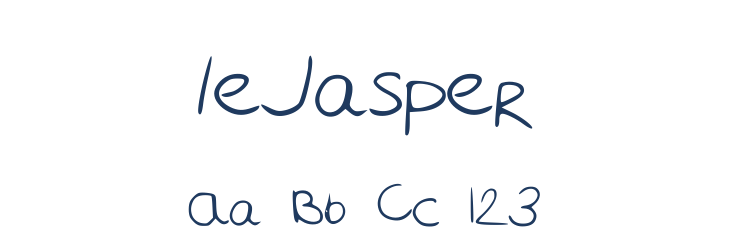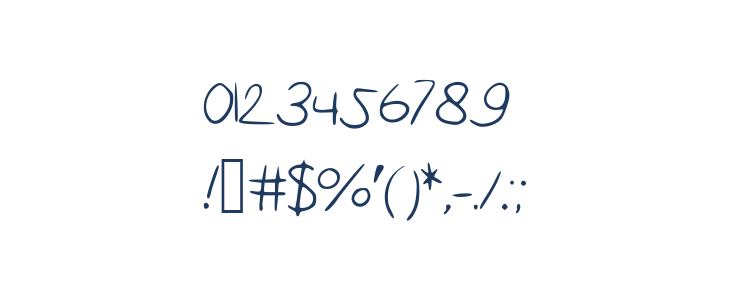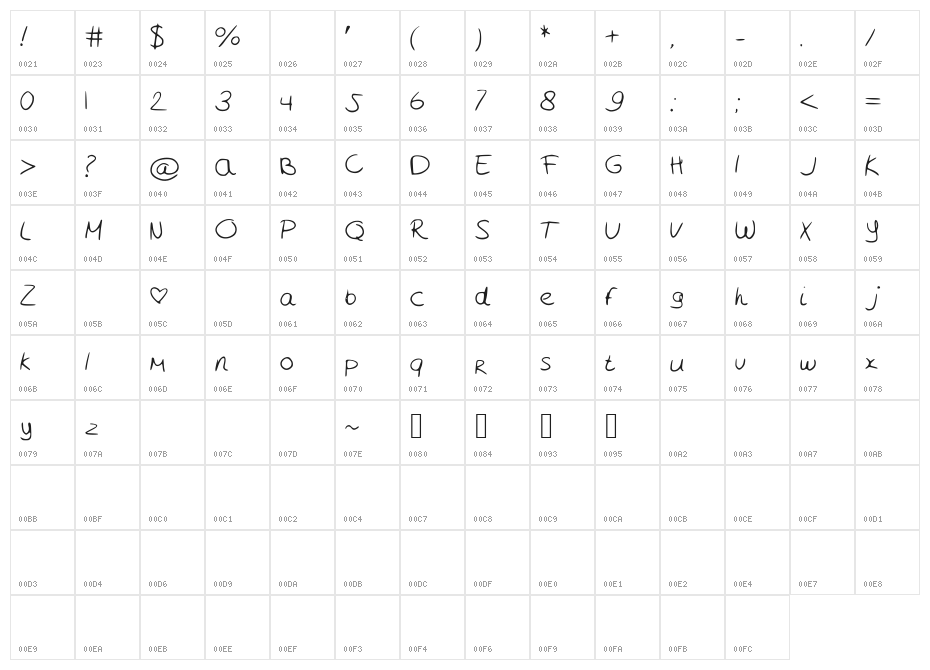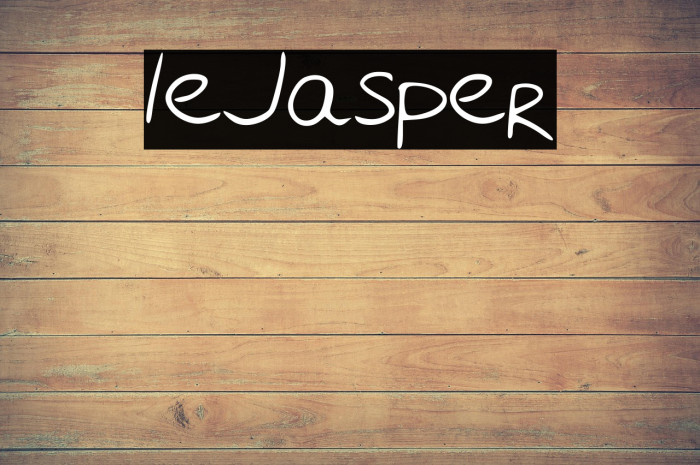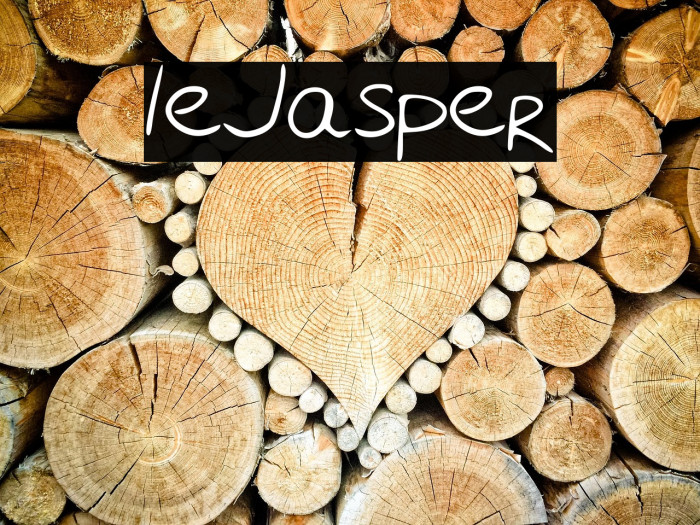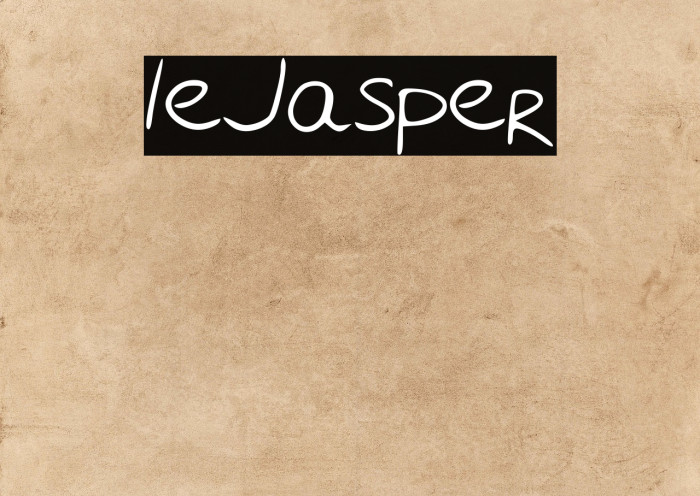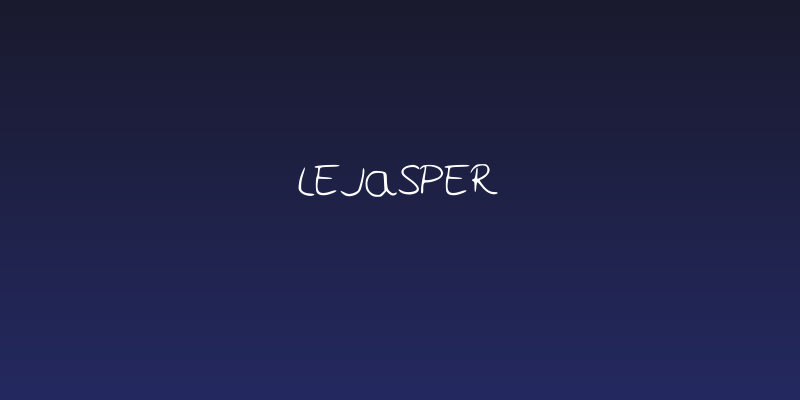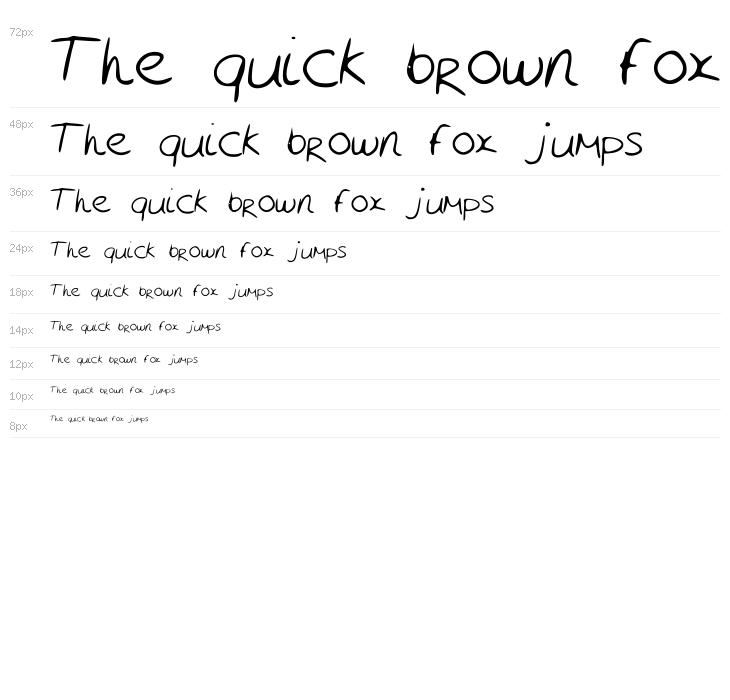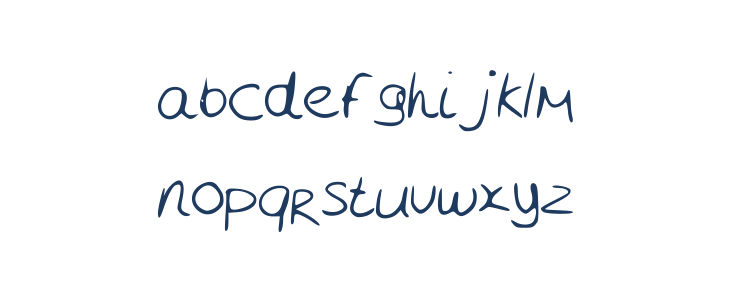
leJasper Font
leJasper Description
A casual, handwritten-style font with irregular, playful letterforms and varying stroke thickness, giving it a friendly and informal appearance.
| Overall Style | Casual, playful, informal |
| Use Case | Personal notes, informal text, creative and playful designs |
| Proposed Projects | Informal invitations, children's books, casual branding, personal notes, and creative projects. |